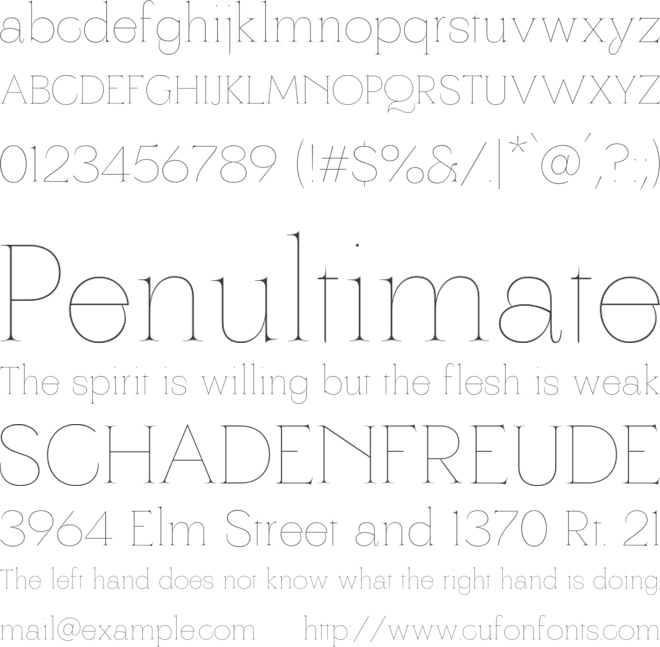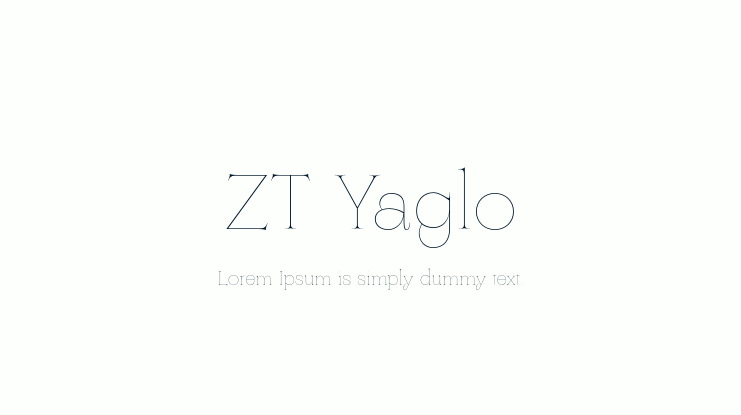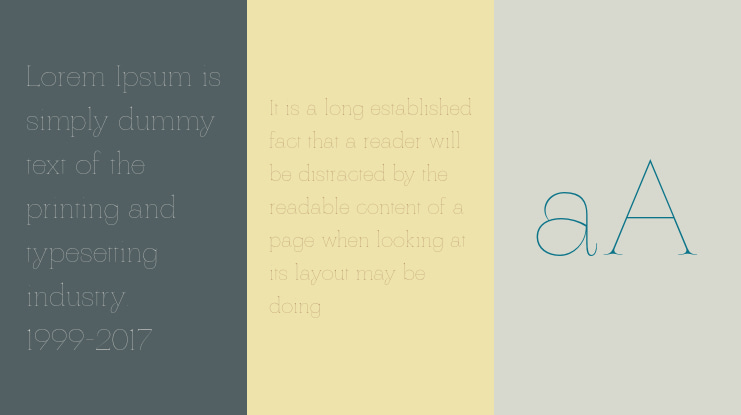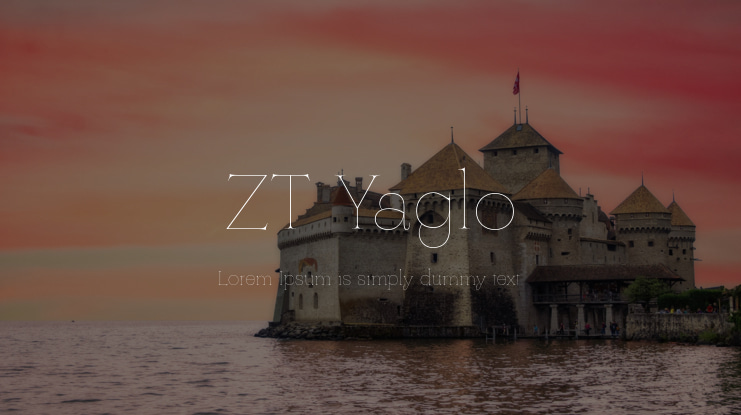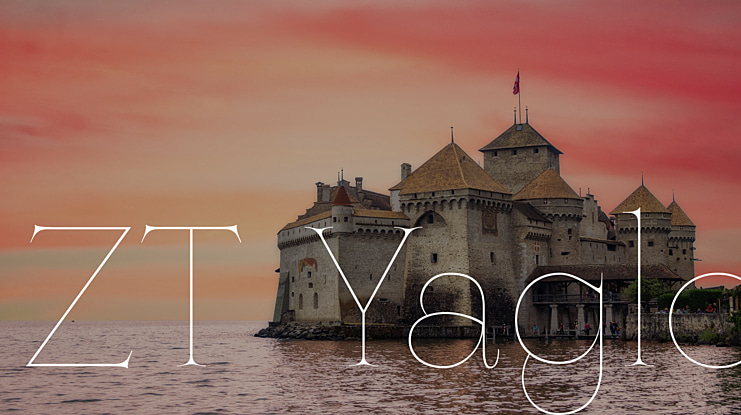
ZT Yaglo Font
ZT Yaglo is a dynamic and expressive display font, from the first impression you may have noticed that this font is a fishing rod-like concept, with a consistent rhythmic curve that gets sharper at the ends. The ZT Yaglo typeface is framed in a sans theme and added a serif feel to produce a bold, geometric typeface in all thicknesses.